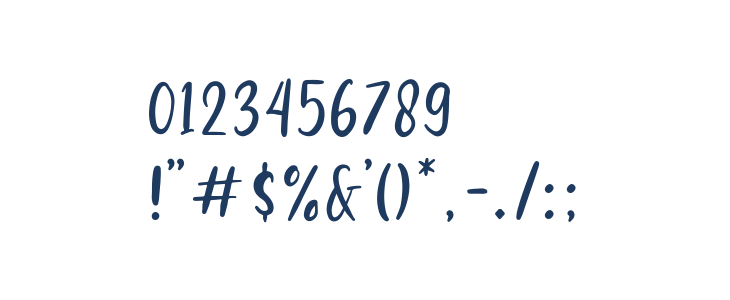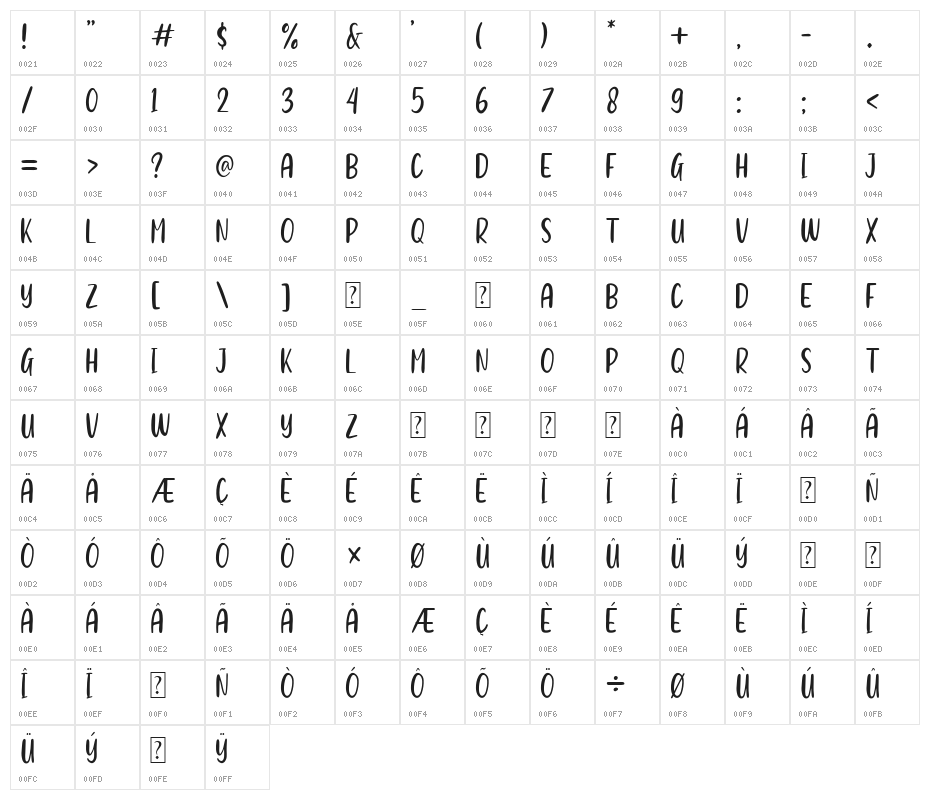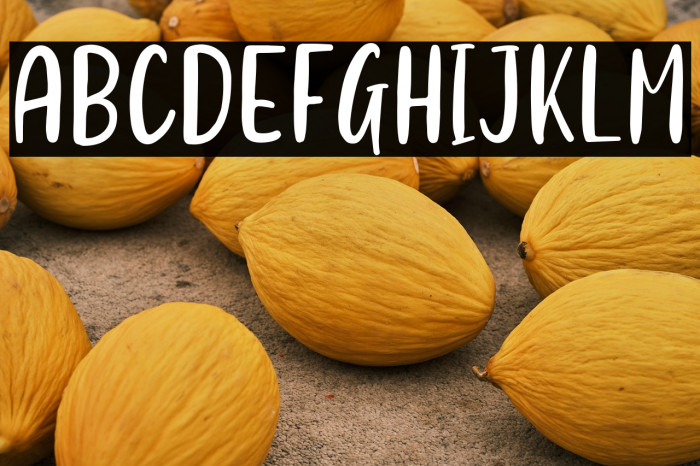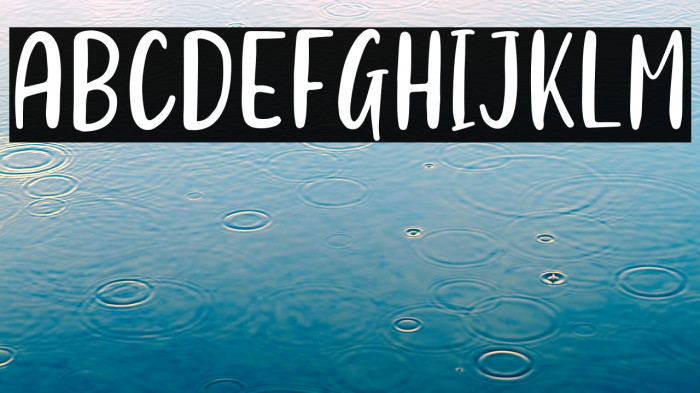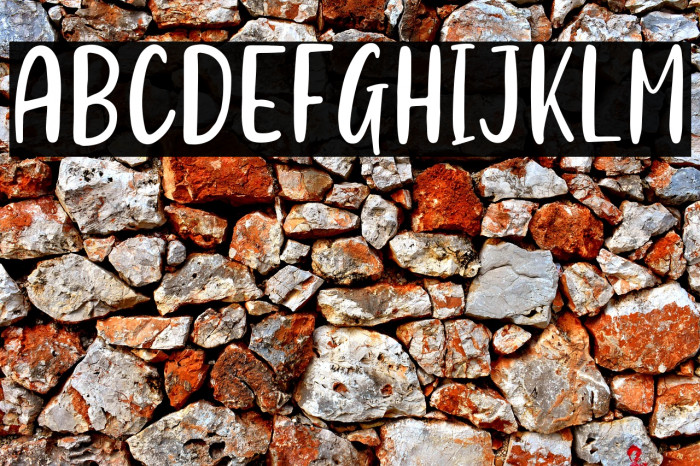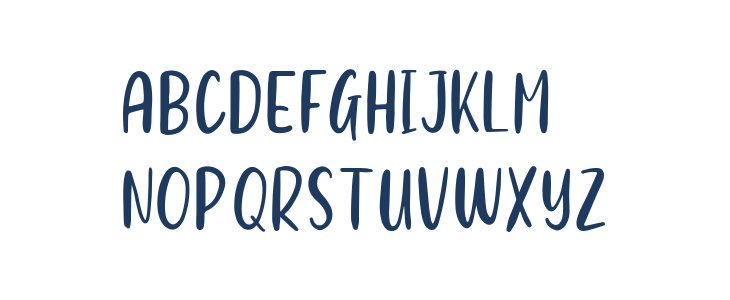
Peaceful Heart Sans Font
Peaceful Heart Sans Description
This font features a playful and casual handwritten style, characterized by smooth, rounded edges and a slightly uneven baseline that adds a touch of whimsy. The letters are moderately spaced, providing a balanced and readable appearance. The strokes are consistent in width, offering a uniform look across all characters. The font includes both uppercase and lowercase letters, numerals, and a variety of special characters, making it versatile for different design needs. Its friendly and approachable aesthetic makes it suitable for projects that aim to convey warmth and creativity.
| Proposed Projects | Ideal for greeting cards, invitations, children's books, and creative branding projects. |